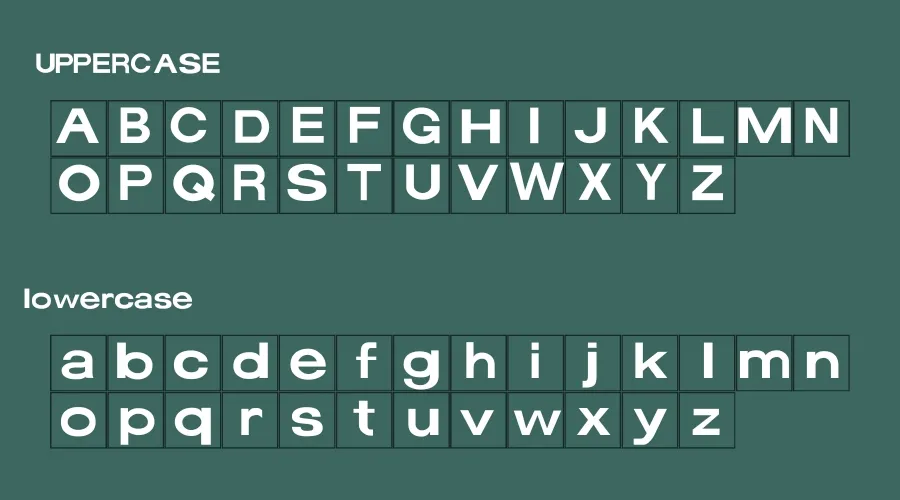
Cheap Signage Standard Font
About Cheap Signage Standard Font
This font can be used in any context, from casual designs to professional projects. It is designed specifically to give you a wide range of options, it is an excellent choice for CSS and adobe photoshops. This font has amazing pairing quality and can be paired with neo sans font and make gorgeous projects.
It contains various types of styles and weights such as Regular, Bold, Italic, and Condensed. This font has an online generator tool, in which you may change all your normal types of alphabet characters into stylish and trendy shapes.
The font is designed with particular attention to small details, allowing for precise typography and a neat presentation for any type of content. It is also an excellent choice for creating logos, posters, and other graphical elements.